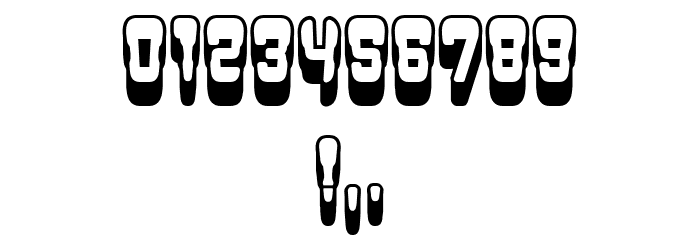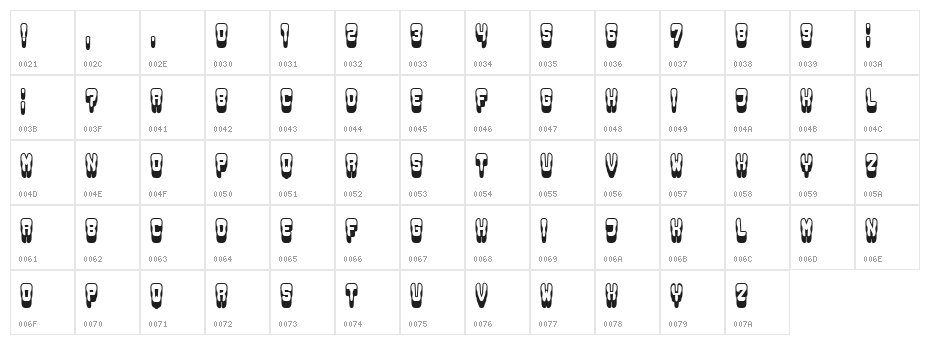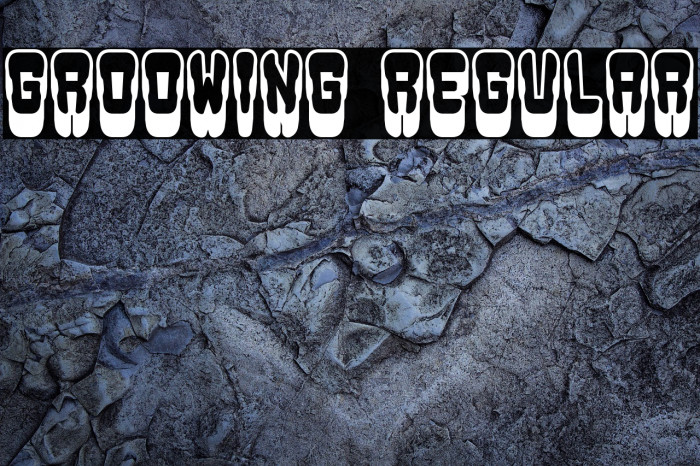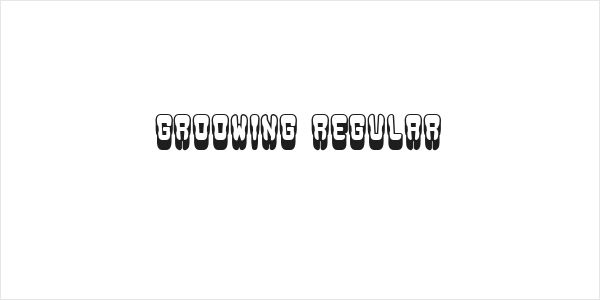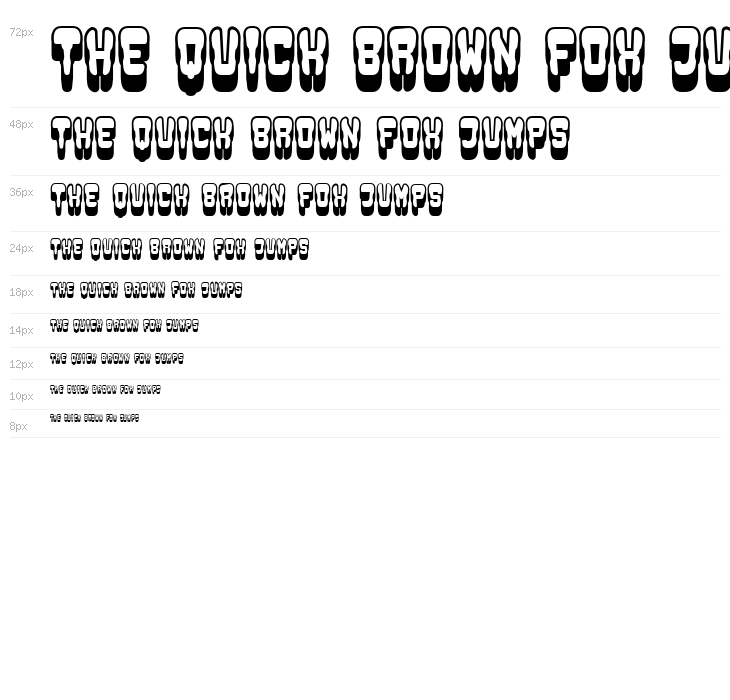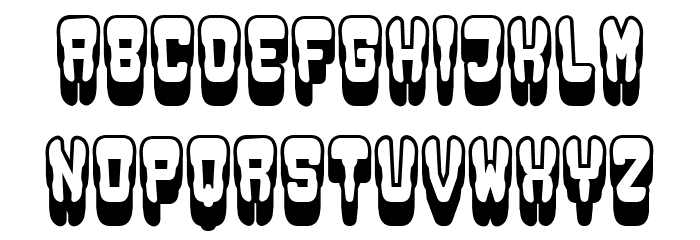
Groowing Regular Font
Groowing Regular Description
This font features a bold, playful design with a three-dimensional effect that gives it a unique, eye-catching appearance. The letters are rounded and have a shadow-like outline that creates a sense of depth. The style is reminiscent of bubble letters, with a modern twist that makes it suitable for contemporary designs. The characters are evenly spaced, and the overall look is both fun and dynamic, making it ideal for projects that require a lively and engaging typeface.